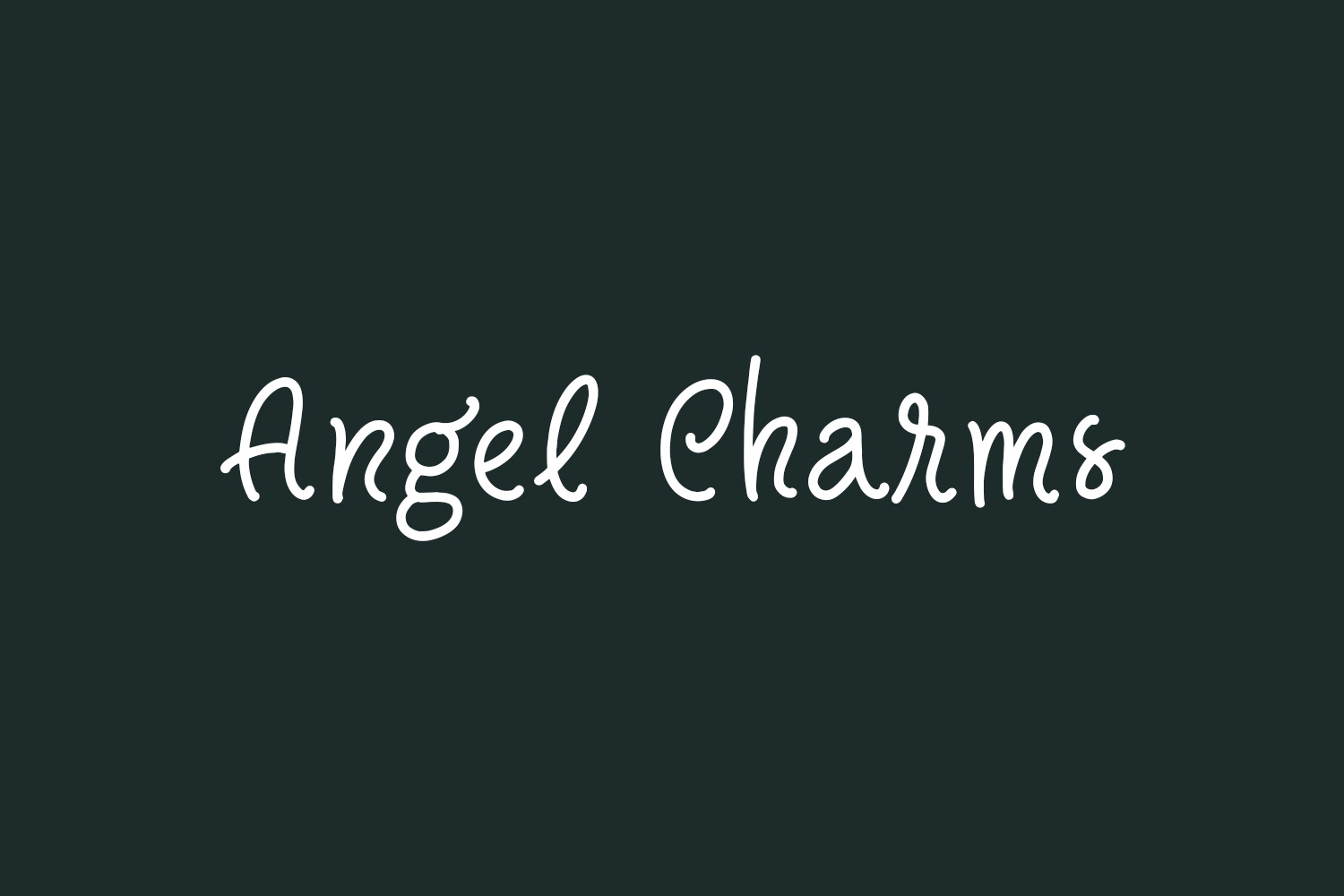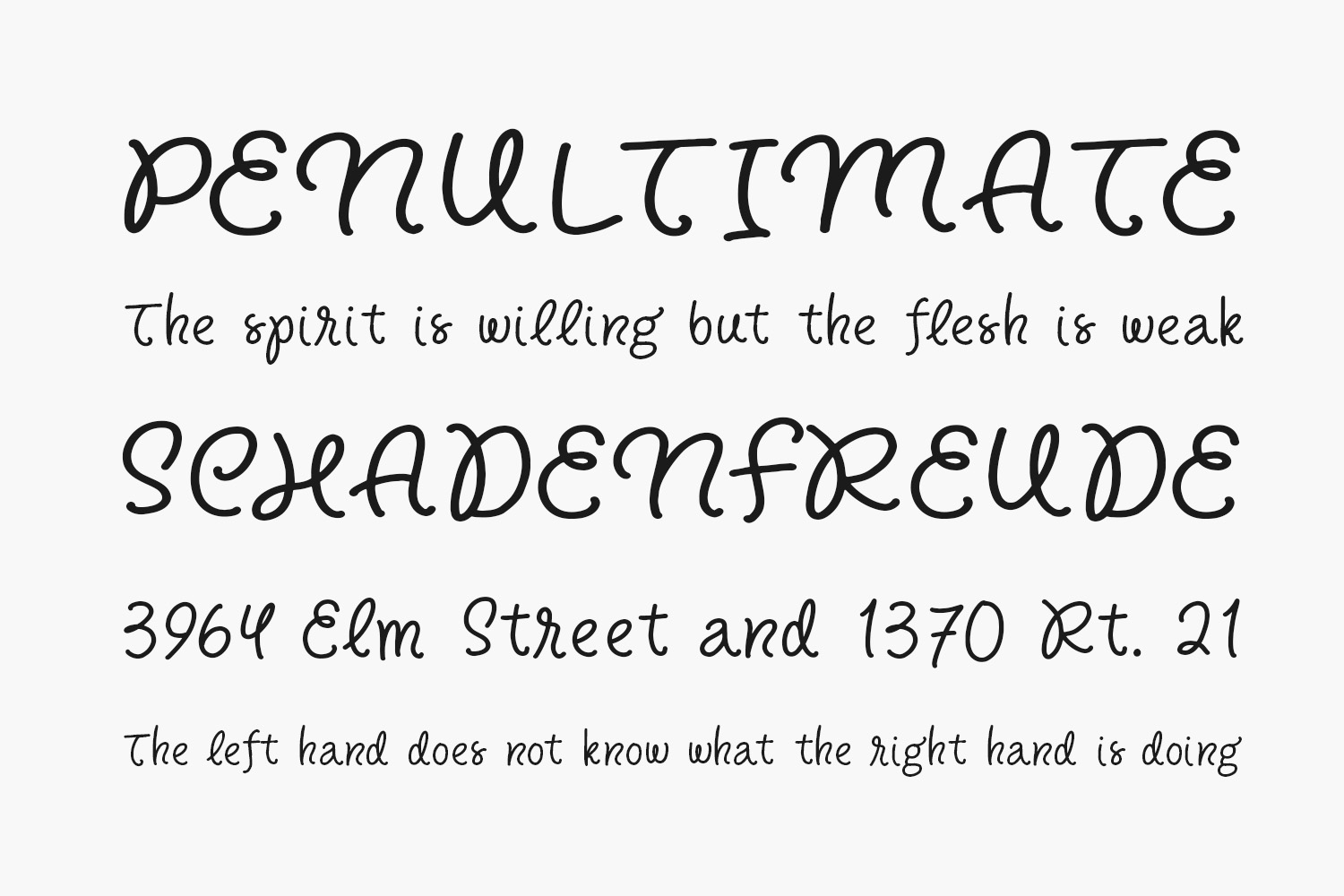
Angel Charms Free Font is a lovely and delicate script font that exudes elegance and class. This font was particularly crafted for those who need a beautiful and refreshing look to their designs. Angel Charms Free Font was designed by Saridezra and is free for personal use only. Please purchase the full version for commercial use.